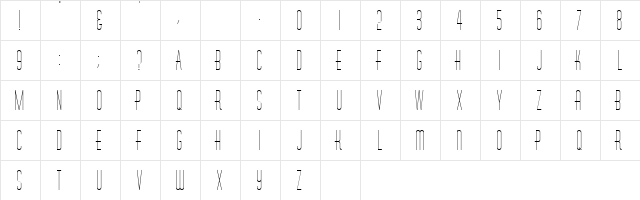
Rhyol Regular
Design Context for Rhyol Typeface
Rhyol offers clean, dependable letterforms without strong stylistic allegiance, making it a practical choice for designers who need flexibility.
Pro Tip: Pair Rhyol with a font of contrasting weight or personality to build a more expressive typographic hierarchy.